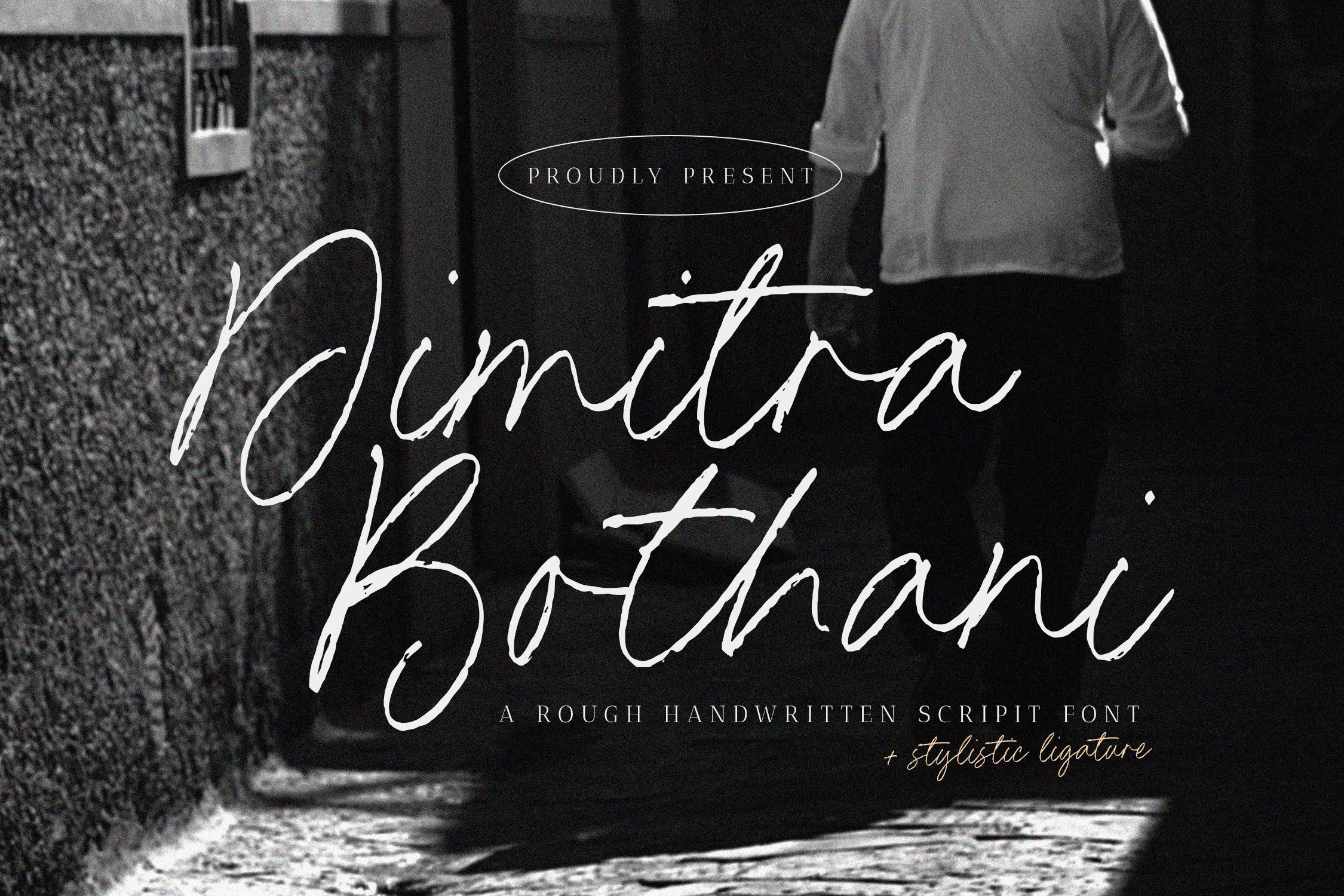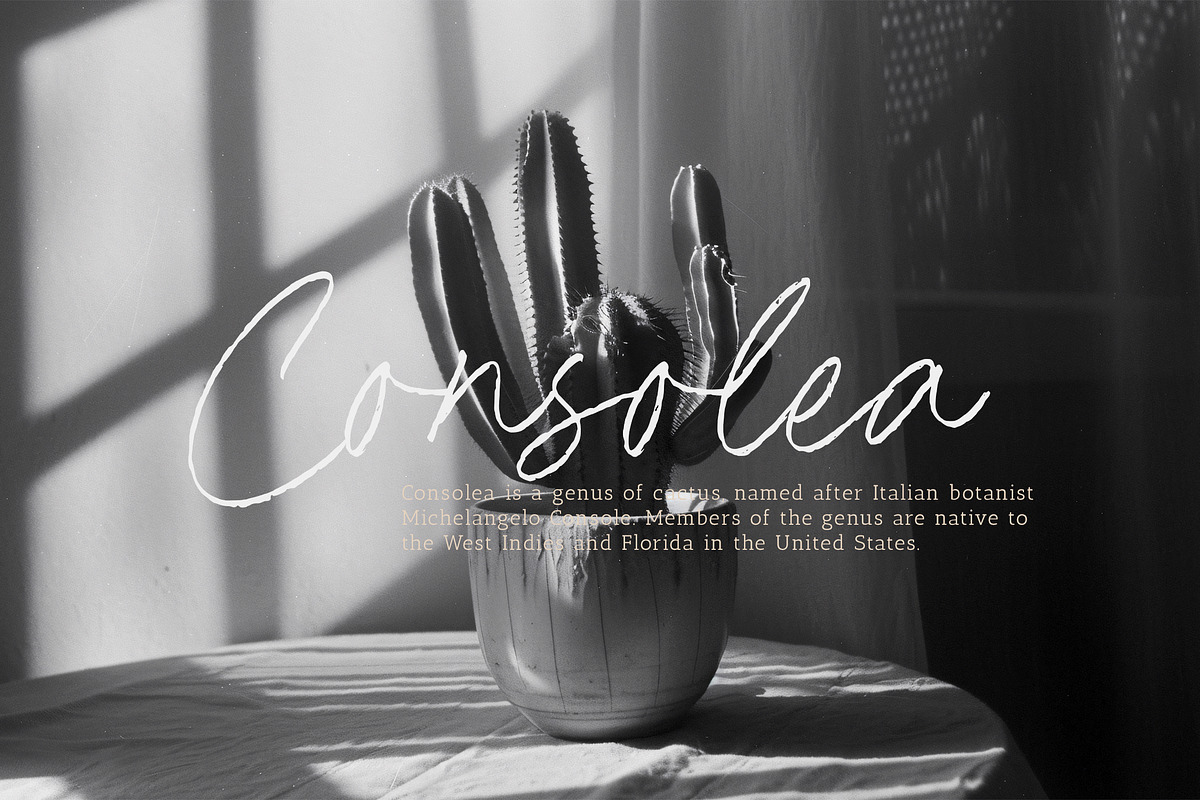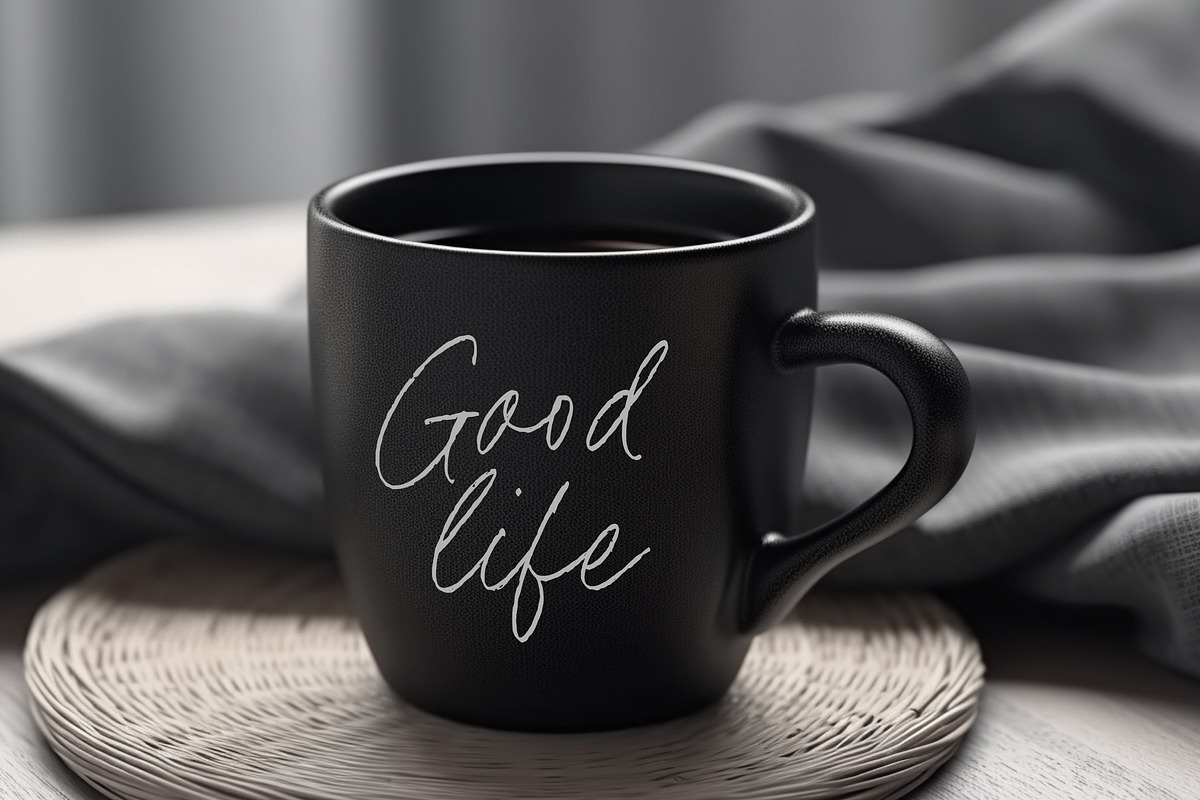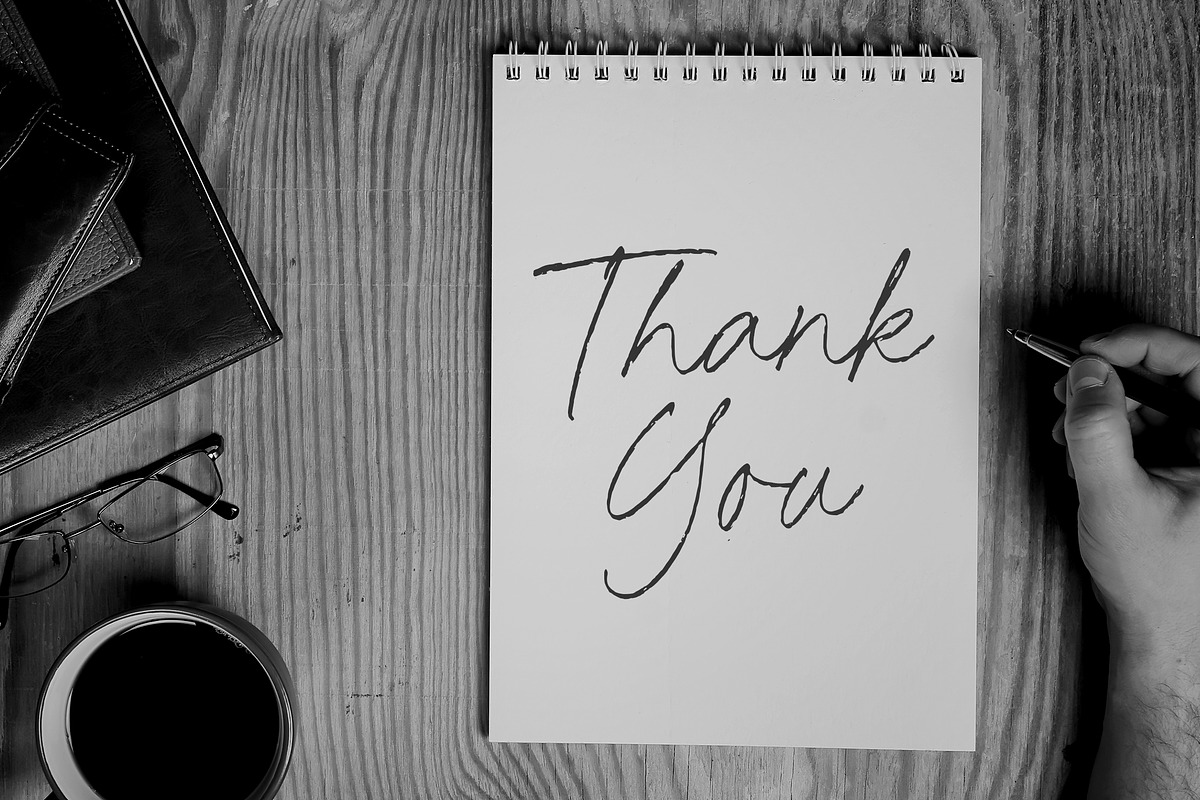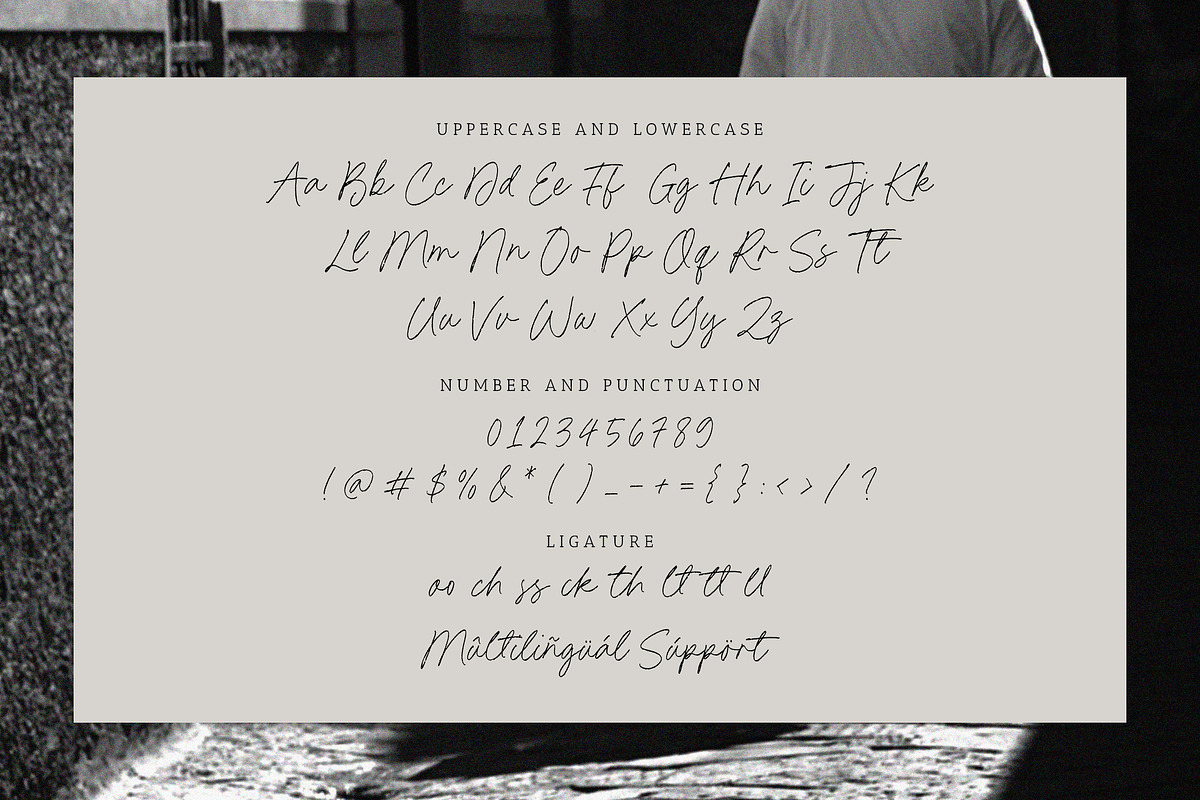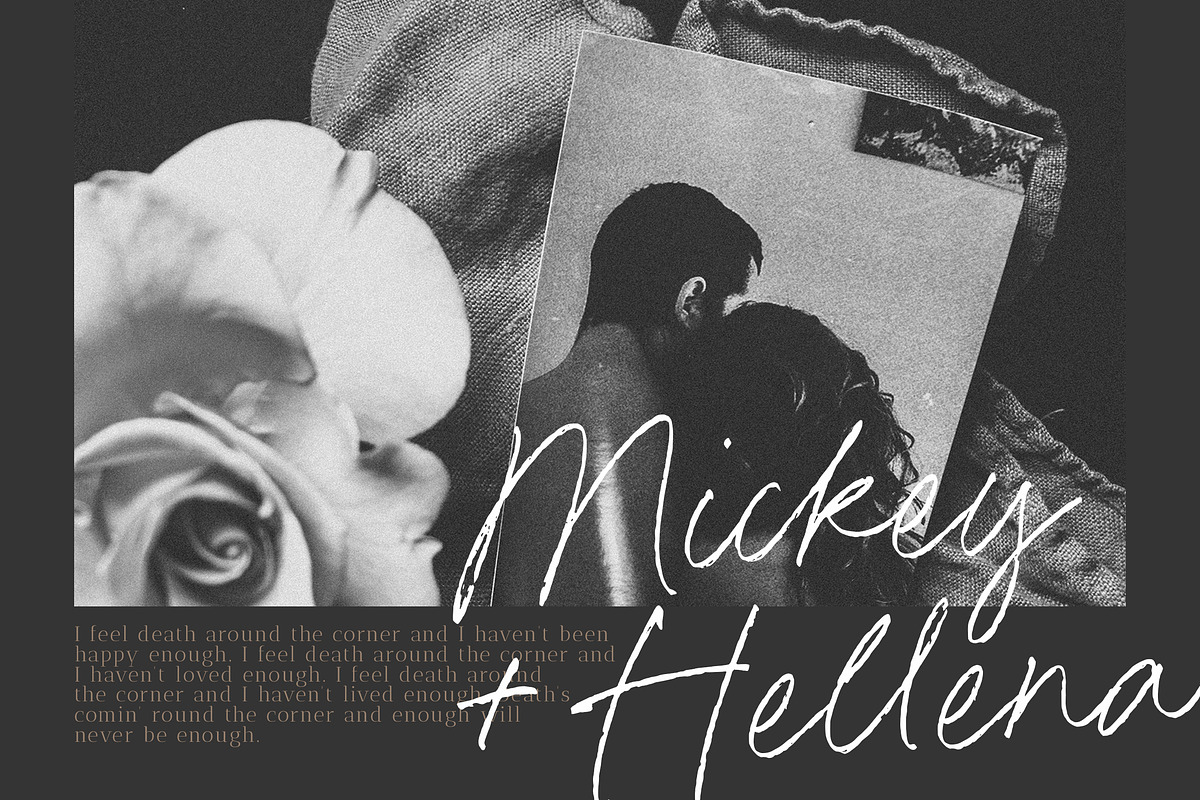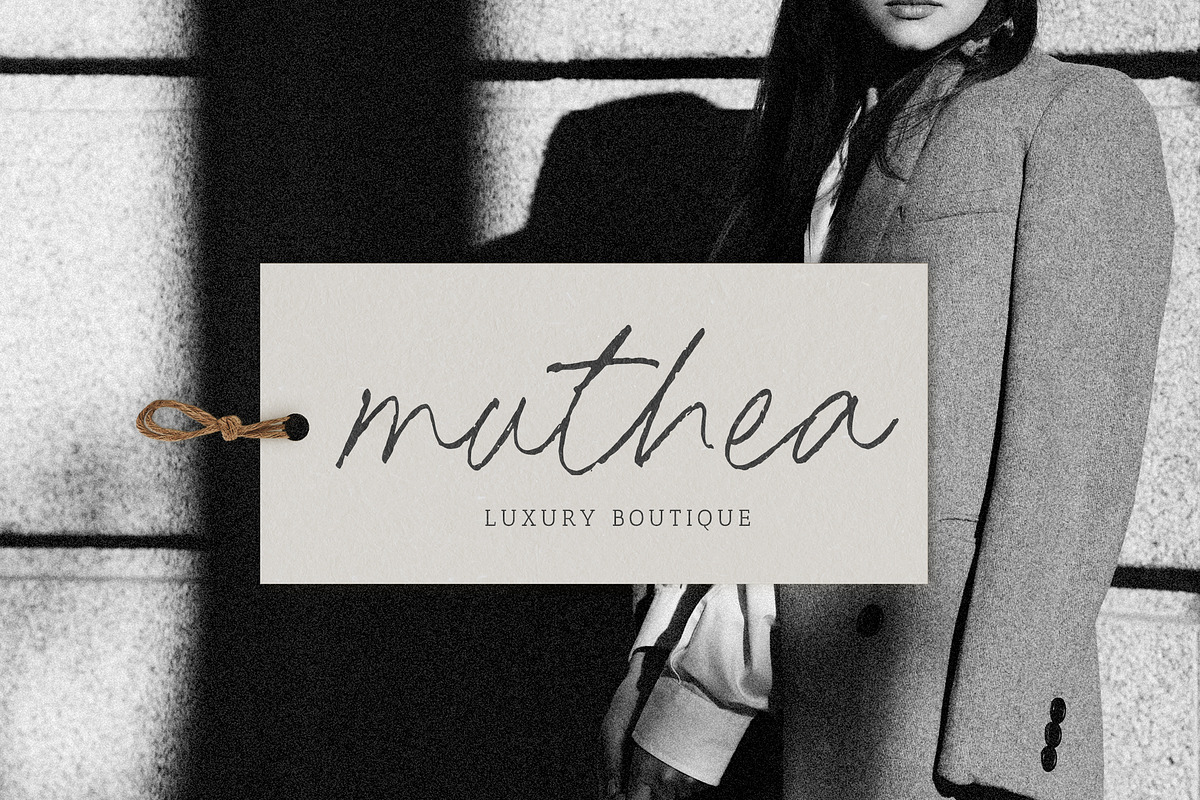
Dimitra Bothani Font
Introduced by Timurtype Studio!
Dimitra Bothani is a Rough Handwritten Script Font
This font is a unique and edgy choice for your design projects. With its rough and raw letterforms, this font exudes a sense of rebellion and artistic freedom. The jagged edges and textured strokes give the Dimitra Bothani font a gritty and distressed aesthetic, perfect for adding a touch of urban and street-inspired style to your designs. The font also features stylistic ligatures, which adds an extra level of customization and visual interest to your text. Whether you’re aiming for a grungy and alternative look or a contemporary and artistic feel, the Dimitra Bothani font offers versatility and character. Embrace the rebellious energy of the Dimitra Bothani rough handwritten script font and unleash your creativity with its distinctive and unapologetic style.
Dimitra Bothani Font also supports multilingualism